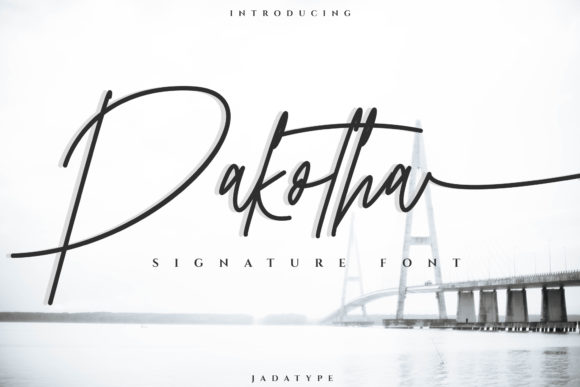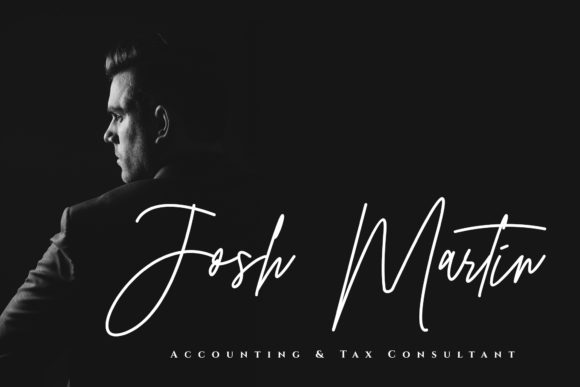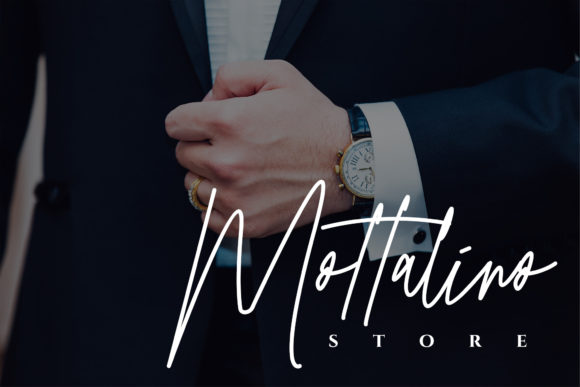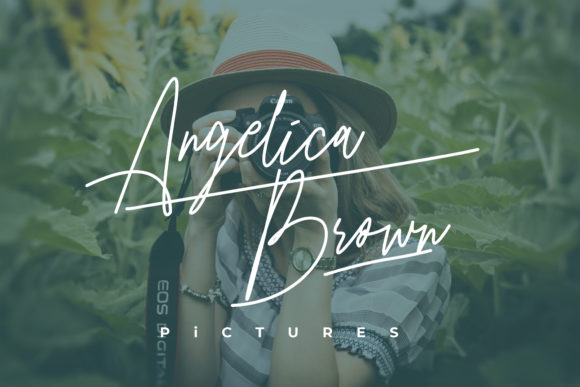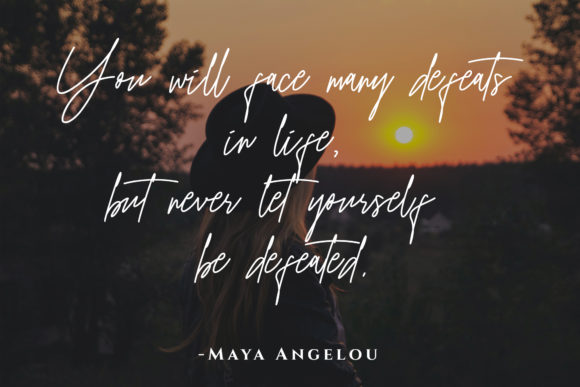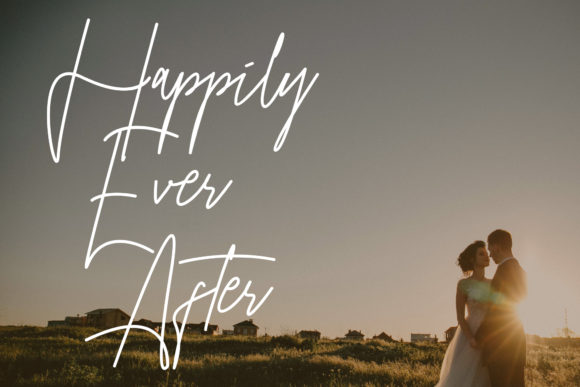
About Pakotha Font
Pakotha Pakothais a flowing handwritten font, described by an elegant touch, perfect for your favorite projects. Fall in love with its incredibly distinct and timeless style and use it to create spectacular designs! This font is PUA encoded which means you can access all of the glyphs and swashes with ease!